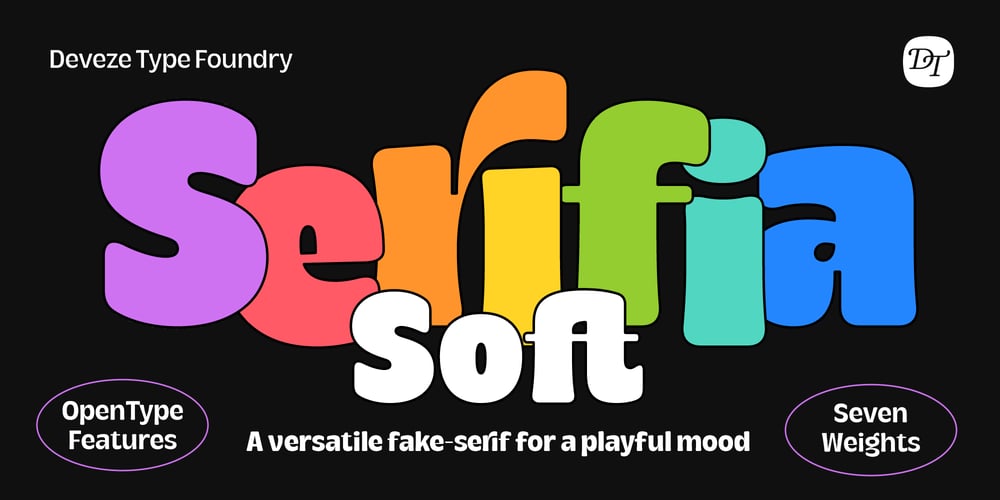
DT Serifia Soft Font Family was designed by Maya De La Deveze and published by Deveze Type. DT Serifia Soft contains 8 styles and family package options. Meet DT Serifia – a fun sans-serif that’ll brighten your day with quirky and super stylish typography. With seven weights, it’s ready for anything – whether it’s a tiny text snippet, a subheading, or a headline! It’ll set the perfect vibe for your ad campaign, give your mobile app or website, jazz up your exhibition poster, or draw in customers from your product packaging. With a bunch of thickness options, you can use this typeface for all kinds of projects. Plus, loads of OpenType features will make your work really stand out.